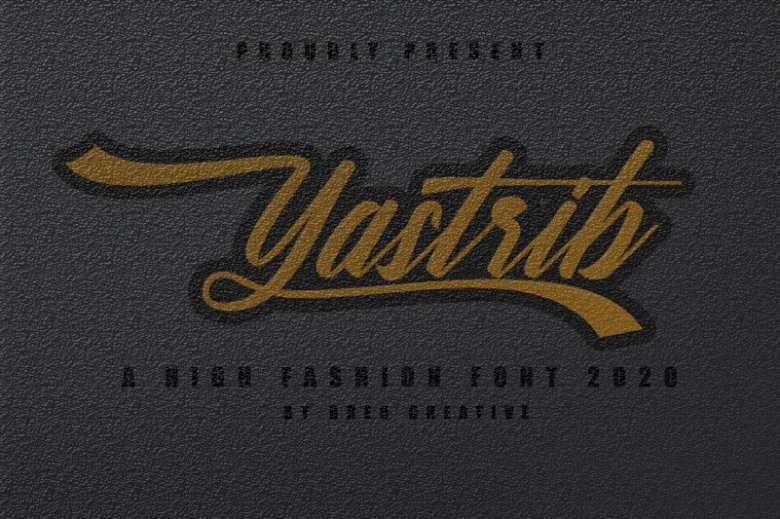
Yastrib Script Font
It is proud to present our latest product ‘YASTRIB SCRIPT FONT’. This beautiful font will be very suitable to be included in your design. with vintage style. This font is great for product logos, wedding card logos, clothing brand logos, Vintage designs, and more.
Yastrib Script Font is Luxsury’s Font with a new style 2020, the style of perfection of the letters you want to use, modern handwriting with many alternatives.403 characters and alternatives.